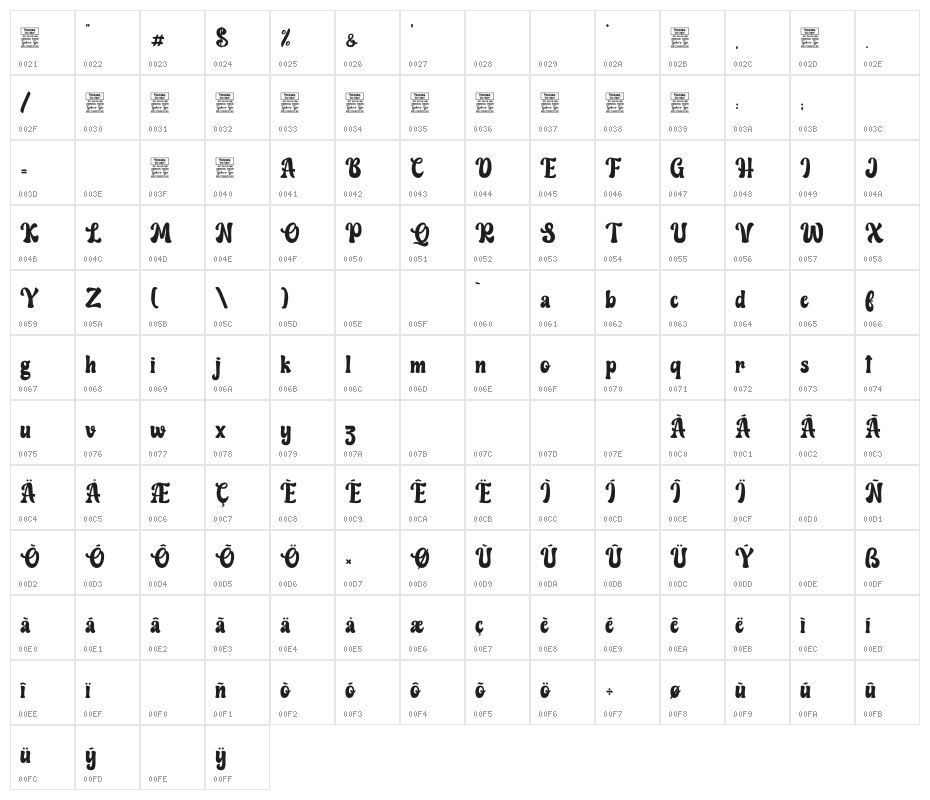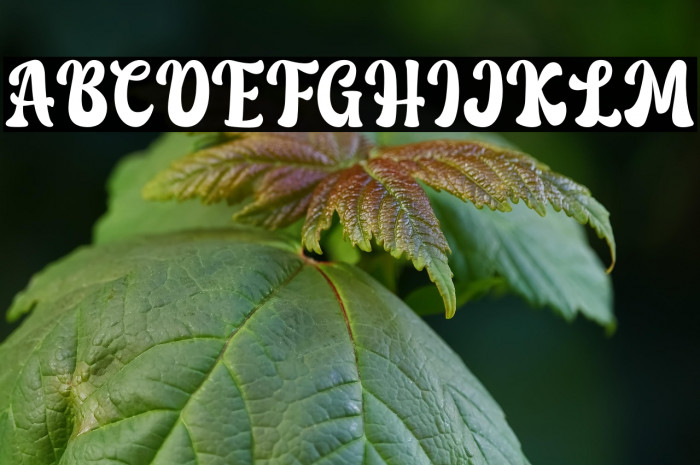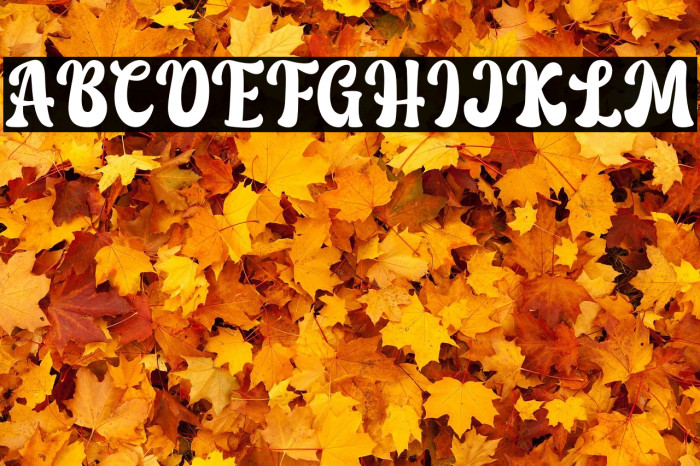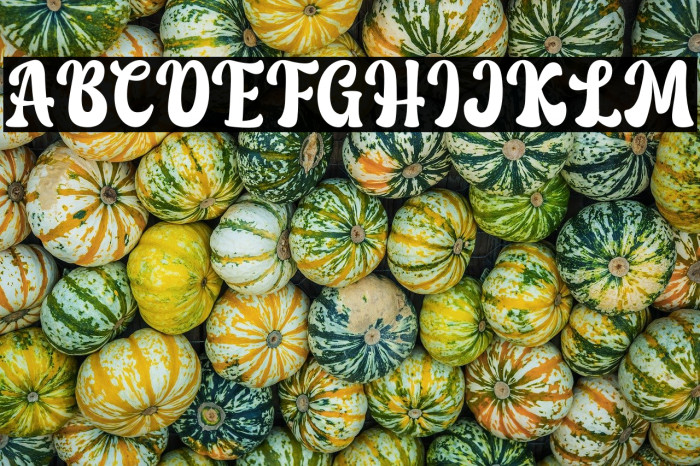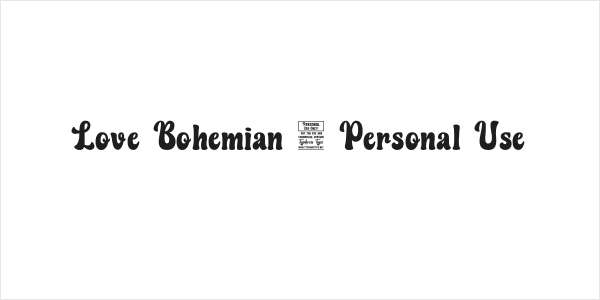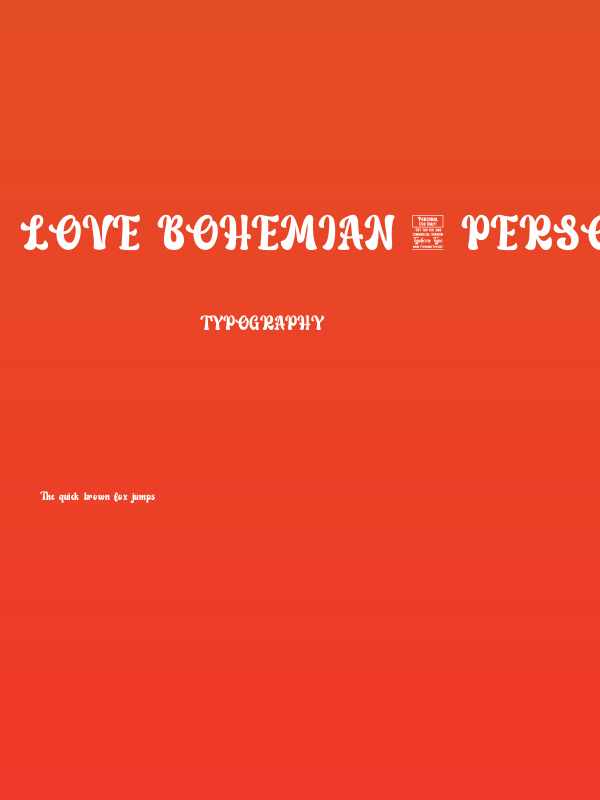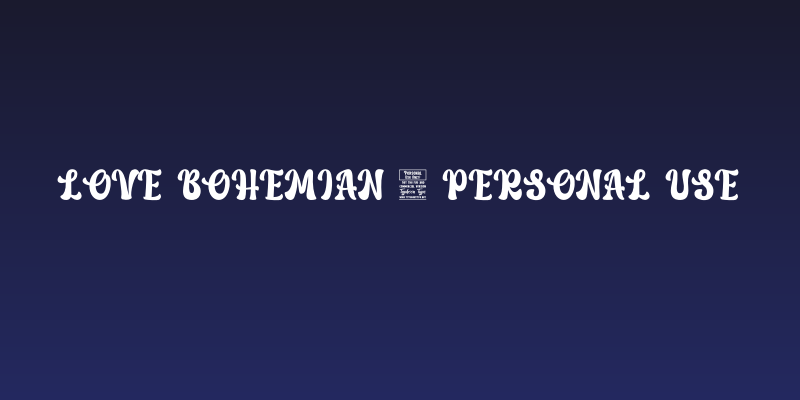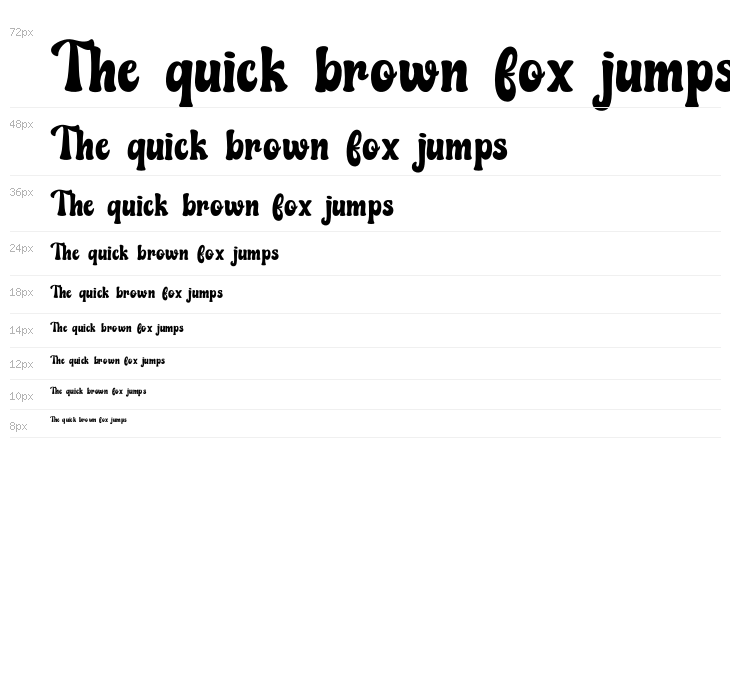
Love Bohemian - Personal Use Font
Love Bohemian - Personal Use Description
This font features a bold and playful design with a distinctly bohemian flair. The uppercase letters are characterized by their thick, rounded strokes and whimsical curves, giving them a lively and dynamic appearance. The lowercase letters maintain this playful style, with some letters featuring unique flourishes that add to the overall charm. The numbers and special characters are equally bold, ensuring consistency throughout. This font's style is reminiscent of vintage signage, making it perfect for projects that require a touch of nostalgia and creativity.
| Overall Style | Vintage, Decorative |
| Proposed Projects | Ideal for creative projects such as posters, invitations, branding, and any design that seeks a whimsical and nostalgic touch. |